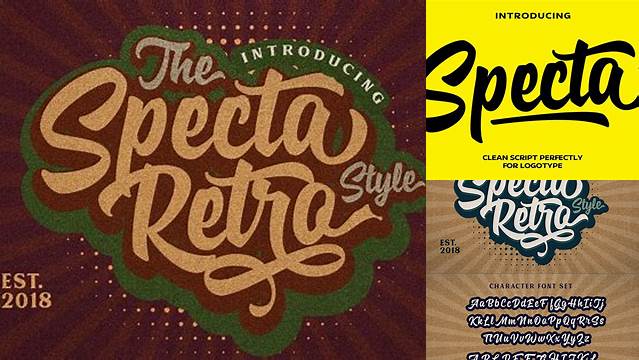
Hey guys! Are you looking for that perfect vintage vibe for your next design project? Look no further! The specta retro script font free is here to save the day. We're diving deep into everything you need to know about this awesome font, from its origins and characteristics to where you can snag it for free and how to use it like a pro. Let's get started!
1. What is Specta Retro Script Font?
The specta retro script font free is a typeface that captures the essence of vintage design with a modern twist. It's designed to evoke feelings of nostalgia, reminiscent of the mid-20th century's advertising, signage, and packaging. Its flowing lines, elegant curves, and unique letterforms make it a standout choice for projects that require a touch of retro charm. Whether you're working on branding, posters, or digital designs, Specta Retro Script can add a distinctive and eye-catching flair. The font's versatility also lies in its ability to pair well with other fonts, allowing for creative combinations that enhance the overall aesthetic. Designers often appreciate its legibility and readability, ensuring that the message remains clear while maintaining its stylistic appeal. The availability of the specta retro script font free has made it accessible to a broader range of users, including hobbyists and students, who can explore its potential without financial constraints.
2. The History and Inspiration Behind Specta
To truly appreciate the specta retro script font free, it helps to understand its historical context and the inspirations that fueled its creation. Retro script fonts, in general, draw heavily from the hand-lettered signage and advertising prevalent in the 1950s and 1960s. These were decades characterized by bold experimentation in design, where typefaces were crafted to be both functional and expressive. The Specta font likely takes cues from this era, reflecting the optimism and dynamism of the time. Designers often look back to vintage typography for inspiration, studying the nuances of letterforms, the interplay of thick and thin strokes, and the overall rhythm of the text. By understanding these historical influences, designers can better utilize the specta retro script font free in a way that respects its heritage while pushing its boundaries. The font's creator may have also been inspired by specific examples of mid-century design, such as vintage posters, classic car advertisements, or even the signage of old diners and theaters. This deep connection to the past is what gives Specta Retro Script its authentic and timeless appeal.
3. Key Characteristics of the Specta Font
The specta retro script font free has several defining characteristics that make it unique and desirable for various design applications. One of the most notable features is its flowing, cursive-like letterforms that create a sense of movement and elegance. The font often includes swashes and alternates, providing designers with options to add extra flair and personality to their typography. The contrast between thick and thin strokes is another key element, contributing to its visual interest and readability. The specta retro script font free typically exhibits a high degree of legibility, even at smaller sizes, making it suitable for both headlines and body text. Its design also considers the spacing between letters (kerning) and lines (leading), ensuring a harmonious and balanced appearance. Furthermore, the font usually supports a wide range of characters, including uppercase and lowercase letters, numbers, punctuation marks, and symbols, making it versatile for different languages and applications. The font's overall aesthetic is often described as warm, inviting, and approachable, making it a great choice for projects that aim to evoke positive emotions and nostalgia.
5. Using Specta in Branding
Incorporating the specta retro script font free into your branding strategy can significantly enhance your brand's identity and appeal. Its vintage aesthetic can evoke feelings of nostalgia and authenticity, which can be particularly effective for brands targeting a specific demographic or aiming to convey a sense of heritage. The font can be used in logos, taglines, and other visual elements to create a cohesive and memorable brand image. When using the specta retro script font free in branding, it's important to consider its legibility and how it pairs with other fonts and design elements. Ensure that the font is readable at various sizes and in different contexts, such as on websites, business cards, and marketing materials. Experiment with different color palettes and layouts to find the perfect combination that reflects your brand's personality and values. Consistency is key in branding, so once you've established a visual style using the specta retro script font free, maintain it across all your brand touchpoints. This will help create a strong and recognizable brand identity that resonates with your target audience and sets you apart from the competition.
6. Specta for Website Design
Using the specta retro script font free in website design can add a unique and stylish touch to your online presence. It can be used for headings, subheadings, and even body text, depending on the overall design and readability requirements. When incorporating the font into your website, it's essential to optimize its performance to ensure fast loading times and a seamless user experience. This can be achieved by using web font formats like WOFF and WOFF2, which are designed for efficient delivery over the internet. Consider using CSS to style the font and ensure it is displayed consistently across different browsers and devices. Pay attention to the font size, line height, and letter spacing to optimize readability and visual appeal. The specta retro script font free can be particularly effective for websites that aim to evoke a vintage or nostalgic feel, such as those in the hospitality, fashion, or entertainment industries. It can also be used to create a sense of authenticity and personality, making your website stand out from the crowd. Remember to test your website on different devices and browsers to ensure the font is displayed correctly and that the overall design is responsive and user-friendly.
7. Specta in Print Materials
The specta retro script font free is not limited to digital applications; it can also be effectively used in various print materials. From posters and flyers to brochures and business cards, the font can add a touch of retro charm and sophistication to your printed designs. When using the font in print, it's crucial to ensure that it is properly embedded in the files to avoid any font substitution issues during the printing process. Use high-resolution versions of the font to ensure crisp and clear text, especially for larger formats. Consider the paper stock and printing techniques to complement the font's aesthetic and enhance the overall visual impact. The specta retro script font free can be particularly effective for print materials that aim to evoke a vintage or handcrafted feel, such as wedding invitations, event posters, or artisanal product packaging. It can also be used to create a sense of nostalgia and authenticity, making your printed designs stand out from the competition. Experiment with different colors, textures, and layouts to find the perfect combination that reflects your brand's personality and values.
8. Pairing Specta with Other Fonts
To create a balanced and visually appealing design, it's often necessary to pair the specta retro script font free with other fonts. The key is to choose fonts that complement the script's style and enhance its readability. Sans-serif fonts are often a good choice, as they provide a clean and modern contrast to the script's flowing lines. Some popular sans-serif options include Helvetica, Arial, and Open Sans. Serif fonts can also work well, but it's important to choose ones that have a similar vintage or classic feel. Examples include Garamond, Times New Roman, and Baskerville. When pairing fonts, consider the hierarchy and purpose of the text. Use the specta retro script font free for headings and subheadings to draw attention, and use the complementary font for body text to ensure readability. Experiment with different font sizes, weights, and styles to create a visual hierarchy that guides the reader through the design. The goal is to create a harmonious and balanced composition that is both visually appealing and easy to read. Remember to test your font pairings in different contexts to ensure they work well together across various mediums and devices.
9. Color Palettes that Complement Specta
Choosing the right color palette is essential when using the specta retro script font free to enhance its vintage aesthetic and create a cohesive design. Colors that evoke a sense of nostalgia and warmth often work well, such as muted pastels, earthy tones, and retro-inspired hues. Consider using colors that were popular in the mid-20th century, such as teal, mustard yellow, coral, and olive green. These colors can be combined to create a visually appealing and authentic retro look. When selecting colors, consider the overall mood and message you want to convey. Warm colors like red, orange, and yellow can evoke feelings of energy and excitement, while cool colors like blue, green, and purple can create a sense of calm and sophistication. Neutral colors like beige, gray, and brown can provide a balanced and understated backdrop for the font. Experiment with different color combinations to find the perfect palette that complements the specta retro script font free and reflects your brand's personality. Use online color palette generators and resources to explore different options and create a harmonious and visually appealing design.
10. Design Software Compatibility with Specta
The specta retro script font free is generally compatible with most popular design software, including Adobe Photoshop, Illustrator, and InDesign. However, it's important to ensure that your software supports the font format (e.g., OTF, TTF) and that you have properly installed the font on your system. When using the font in design software, you can customize its appearance by adjusting parameters such as font size, letter spacing, line height, and color. Experiment with different effects and styles to enhance the font's visual impact and create a unique design. Some design software may offer advanced typography features that allow you to further customize the font, such as kerning, ligatures, and alternate characters. Take advantage of these features to refine the font's appearance and create a polished and professional design. Before exporting your design, ensure that the font is properly embedded or outlined to avoid any font substitution issues when the file is opened on another computer. Test your design in different software and devices to ensure that the font is displayed correctly and that the overall design is visually appealing.
11. Common Mistakes to Avoid When Using Specta
While the specta retro script font free can be a valuable asset in your design arsenal, it's important to avoid common mistakes that can detract from its effectiveness. One common mistake is overuse. Using the font too frequently or in inappropriate contexts can diminish its impact and make your design look cluttered and unprofessional. Another mistake is poor font pairing. Choosing fonts that clash with the script's style can create a jarring and visually unappealing design. It's also important to avoid using the font in overly small sizes, as this can make it difficult to read. Ensure that the font is legible and readable in all contexts, especially on websites and in print materials. Pay attention to kerning and letter spacing to avoid awkward gaps or overlaps between letters. Finally, avoid using the font in a way that is inconsistent with your brand's identity or the overall message you want to convey. By avoiding these common mistakes, you can ensure that the specta retro script font free is used effectively and enhances the overall quality of your design.
12. Specta for Logo Design
The specta retro script font free can be an excellent choice for logo design, especially if you're aiming for a vintage or handcrafted aesthetic. Its unique letterforms and flowing lines can add personality and character to your logo, making it stand out from the competition. When using the font in logo design, it's important to consider its legibility and scalability. Ensure that the logo is readable at various sizes and in different contexts, such as on websites, business cards, and signage. Experiment with different layouts and compositions to find the perfect balance between the font and other design elements. Consider adding a graphic element or symbol to complement the font and create a memorable and recognizable logo. The specta retro script font free can be particularly effective for logos in industries such as hospitality, fashion, and entertainment, where a vintage or artisanal feel is desired. Remember to create variations of your logo for different applications, such as a horizontal version, a vertical version, and a simplified version for small spaces. Test your logo on different backgrounds and in different colors to ensure that it looks good in all contexts.
13. Creating a Vintage Aesthetic with Specta
The specta retro script font free is a powerful tool for creating a vintage aesthetic in your designs. To enhance the retro feel, consider incorporating other design elements that were popular in the mid-20th century, such as vintage illustrations, textures, and patterns. Use muted color palettes and retro-inspired hues to create a cohesive and authentic look. Experiment with different layout techniques, such as asymmetrical layouts and hand-drawn elements, to add character and personality to your designs. The specta retro script font free can be used for a variety of vintage-inspired projects, such as posters, flyers, and invitations. Consider using distressed or textured paper stocks to enhance the vintage feel of your print materials. When designing for the web, use CSS to add retro-inspired effects, such as drop shadows and gradients. Remember to research vintage design trends and styles to gain inspiration and ensure that your designs are authentic and visually appealing. By combining the specta retro script font free with other vintage design elements, you can create a truly unique and memorable aesthetic.
14. Legibility Considerations for Specta
While the specta retro script font free is visually appealing, it's important to consider its legibility, especially when using it for body text or in smaller sizes. Ensure that the font is readable and easy to understand in all contexts. Pay attention to the letter spacing, line height, and font size to optimize readability. Avoid using the font in overly condensed or extended formats, as this can make it difficult to read. Consider using a complementary font for body text to improve readability, while reserving the specta retro script font free for headings and subheadings. Test your designs with different audiences to gather feedback on legibility and make adjustments as needed. Remember that legibility is crucial for effective communication, so prioritize it over aesthetics when necessary. The specta retro script font free can be used effectively while maintaining legibility by carefully considering its application and context. By optimizing readability, you can ensure that your designs are both visually appealing and easy to understand.
15. Using Specta for Social Media Graphics
Using the specta retro script font free for social media graphics can help your content stand out and attract attention. Its vintage aesthetic can evoke a sense of nostalgia and authenticity, which can be particularly effective for brands targeting a specific demographic or aiming to convey a sense of heritage. When using the font in social media graphics, it's important to consider the platform's specific requirements and limitations. Ensure that the font is readable on different devices and screen sizes. Use high-resolution images and graphics to ensure that your content looks crisp and professional. Experiment with different color palettes and layouts to find the perfect combination that reflects your brand's personality and values. The specta retro script font free can be used for a variety of social media graphics, such as profile pictures, cover photos, and promotional images. Consider using the font in animated graphics or videos to add visual interest and engagement. Remember to optimize your graphics for each platform to ensure that they are displayed correctly and that they meet the platform's guidelines. By using the specta retro script font free effectively in social media graphics, you can enhance your brand's online presence and connect with your target audience.
16. Specta for Invitations and Event Design
The specta retro script font free is an excellent choice for invitations and event design, adding a touch of elegance and vintage charm to your special occasions. Whether it's a wedding, birthday party, or corporate event, the font can help create a memorable and stylish invitation. When using the font in invitation design, consider the overall theme and style of the event. Use complementary colors and design elements to create a cohesive and visually appealing invitation. The specta retro script font free can be used for the main text, headings, or even decorative elements on the invitation. Experiment with different layouts and compositions to find the perfect balance between the font and other design elements. Consider using high-quality paper stock and printing techniques to enhance the overall look and feel of the invitation. The font can also be used in other event-related materials, such as menus, programs, and signage. Remember to proofread your invitations carefully to ensure that all the information is accurate and up-to-date. By using the specta retro script font free effectively in invitation and event design, you can create a sophisticated and memorable experience for your guests.
17. Exploring Specta Font Weights and Styles
The specta retro script font free may come in various weights and styles, offering you flexibility in your designs. Different weights, such as light, regular, and bold, can be used to create visual hierarchy and emphasis. Styles, such as italic or condensed, can add further variation and personality to your typography. When using different weights and styles, consider the overall design and the message you want to convey. Use heavier weights for headings and subheadings to draw attention, and use lighter weights for body text to improve readability. Experiment with different styles to find the perfect combination that complements the font's aesthetic and enhances the overall design. The specta retro script font free may also include alternate characters or ligatures, which can add unique and decorative elements to your typography. Take advantage of these features to create a custom and personalized design. Remember to use font weights and styles sparingly to avoid overwhelming the viewer and detracting from the overall design. By exploring the different weights and styles available for the specta retro script font free, you can create a dynamic and visually appealing typography that enhances your designs.
18. Specta in Packaging Design
Using the specta retro script font free in packaging design can create a unique and memorable brand identity. Its vintage aesthetic can evoke a sense of nostalgia and authenticity, which can be particularly effective for brands targeting a specific demographic or aiming to convey a sense of heritage. When using the font in packaging design, it's important to consider the overall product and target market. Use complementary colors and design elements to create a cohesive and visually appealing package. The specta retro script font free can be used for the product name, tagline, or other key information on the packaging. Experiment with different layouts and compositions to find the perfect balance between the font and other design elements. Consider using sustainable and eco-friendly packaging materials to align with your brand's values. The font can be used for a variety of packaging designs, such as food products, cosmetics, and apparel. Remember to comply with all relevant labeling and packaging regulations. By using the specta retro script font free effectively in packaging design, you can create a product that stands out on the shelf and attracts customers.
19. Tips for Customizing Specta Font
While the specta retro script font free is a beautiful font on its own, there are several ways you can customize it to make it even more unique and personalized. One way is to adjust the kerning and letter spacing to create a more balanced and visually appealing text. Another way is to add custom swashes or flourishes to the letters to add a touch of elegance and personality. You can also experiment with different colors and effects to enhance the font's visual impact. Consider adding a gradient or shadow to the font to make it stand out. You can also use design software to distort or manipulate the font in creative ways. Remember to use customization techniques sparingly to avoid overwhelming the viewer and detracting from the overall design. The goal is to enhance the font's natural beauty and create a custom design that reflects your brand's personality and values. By using these tips for customizing the specta retro script font free, you can create a truly unique and memorable typography.
20. Specta and its Role in Retro Gaming Design
The specta retro script font free can play a significant role in retro gaming design, evoking a sense of nostalgia and authenticity for classic gaming experiences. Its vintage aesthetic can transport players back to the golden age of gaming, creating a memorable and immersive experience. When using the font in retro gaming design, consider the overall theme and style of the game. Use complementary colors and design elements to create a cohesive and visually appealing interface. The specta retro script font free can be used for the game title, menu options, and in-game text. Experiment with different layouts and compositions to find the perfect balance between the font and other design elements. Consider using pixelated or low-resolution versions of the font to enhance the retro feel. The font can be used for a variety of retro gaming designs, such as arcade games, platformers, and role-playing games. Remember to comply with all relevant copyright and licensing regulations. By using the specta retro script font free effectively in retro gaming design, you can create a game that appeals to both nostalgic gamers and new players alike.
21. Licensing Considerations for Free Fonts
When downloading and using the specta retro script font free, it's crucial to understand and comply with the font's licensing terms. Free fonts are not always free for all uses, and many come with specific restrictions or requirements. Some free fonts may be free for personal use but require a commercial license for business purposes. Others may require attribution, meaning you must credit the font designer in your project. It's important to carefully read the license agreement before using the font to ensure that you are complying with its terms. Failure to comply with the font's licensing terms can result in legal consequences, such as fines or lawsuits. Always download free fonts from reputable sources and check the license information before using them in your designs. If you are unsure about the licensing terms, contact the font designer or distributor for clarification. By understanding and complying with the licensing terms for free fonts, you can avoid legal issues and ensure that you are using the specta retro script font free ethically and responsibly.
22. The Future of Retro Fonts Like Specta
The future of retro fonts like the specta retro script font free looks bright, as the demand for vintage-inspired designs continues to grow. As designers and brands seek to evoke a sense of nostalgia and authenticity, retro fonts will continue to be a popular choice. Technological advancements are also likely to play a role in the evolution of retro fonts, with new tools and techniques making it easier to create and customize vintage-inspired typefaces. We may also see the emergence of new retro font styles that blend classic design elements with modern trends. The specta retro script font free and other retro fonts are likely to remain a valuable asset for designers and brands seeking to create unique and memorable designs. As the design landscape continues to evolve, retro fonts will adapt and innovate, ensuring their continued relevance and popularity. The future of retro fonts is bright, and we can expect to see even more creative and innovative designs in the years to come.
23. Specta for Film and Movie Titles
The specta retro script font free can be a fantastic choice for film and movie titles, especially if you're aiming for a vintage or stylish aesthetic. Its unique letterforms and flowing lines can capture the essence of a particular era or genre, adding a touch of elegance and personality to your film. When using the font for film titles, consider the overall tone and theme of the movie. Use complementary colors and design elements to create a visually appealing and memorable title sequence. The specta retro script font free can be used for the main title, subtitles, or credits. Experiment with different layouts and compositions to find the perfect balance between the font and other design elements. Consider adding visual effects or animation to enhance the title sequence and create a lasting impression. The font can be used for a variety of film genres, such as classic dramas, romantic comedies, and independent films. Remember to comply with all relevant copyright and licensing regulations. By using the specta retro script font free effectively for film and movie titles, you can create a title sequence that sets the stage for a captivating cinematic experience.
24. Optimizing Specta for Different Screen Resolutions
Optimizing the specta retro script font free for different screen resolutions is essential to ensure that your designs look crisp and clear on all devices. With the proliferation of smartphones, tablets, and high-resolution displays, it's important to design with responsiveness in mind. When using the font in web design, use web font formats like WOFF and WOFF2 to ensure that the font is displayed correctly on different browsers and devices. Use CSS media queries to adjust the font size and layout for different screen resolutions. Consider using scalable vector graphics (SVGs) for logos and other design elements to ensure that they look sharp on high-resolution displays. Test your designs on different devices and browsers to ensure that the font is displayed correctly and that the overall design is visually appealing. Remember that optimizing for different screen resolutions is crucial for providing a seamless and user-friendly experience. By optimizing the specta retro script font free for different screen resolutions, you can ensure that your designs look great on all devices and that your message is effectively communicated.
25. Maintaining Consistency with Specta Across Platforms
Maintaining consistency with the specta retro script font free across different platforms is crucial for creating a cohesive and professional brand identity. Whether you're designing for the web, print, or social media, it's important to ensure that the font is displayed consistently and that your brand message is effectively communicated. When using the font in web design, use web font formats and CSS to ensure that the font is displayed correctly on different browsers and devices. When using the font in print design, ensure that the font is properly embedded in the files to avoid any font substitution issues during the printing process. When using the font in social media graphics, optimize your images and graphics for each platform to ensure that they are displayed correctly and that they meet the platform's guidelines. Use a consistent color palette and design style across all platforms to reinforce your brand identity. Remember that consistency is key for building brand recognition and trust. By maintaining consistency with the specta retro script font free across different platforms, you can create a strong and recognizable brand identity that resonates with your target audience.
26. Creating a Modern Twist on Specta Retro Script
While the specta retro script font free is rooted in vintage design, there are several ways you can give it a modern twist to create a unique and contemporary look. One way is to pair the font with modern design elements, such as geometric shapes, bold colors, and minimalist layouts. Another way is to use the font in unexpected contexts, such as in website headers or app interfaces. You can also experiment with different font weights and styles to create a more dynamic and visually appealing typography. Consider using the font in combination with modern fonts, such as sans-serif or geometric fonts, to create a balanced and harmonious design. Remember that the key is to experiment and find a style that reflects your brand's personality and values. By creating a modern twist on the specta retro script font free, you can create a design that is both timeless and contemporary.
27. Alternatives to Specta Retro Script Font
If the specta retro script font free doesn't quite fit your needs, there are several alternatives that you can consider. Some popular retro script fonts include Pacifico, Lobster, and Great Vibes. These fonts offer a similar vintage aesthetic but with slightly different characteristics and styles. You can also explore other font categories, such as sans-serif or serif fonts, to find a complementary font that pairs well with your design. Remember to consider the overall tone and style of your project when choosing an alternative font. Experiment with different font combinations and layouts to find the perfect fit for your design. There are many excellent fonts available, so don't be afraid to explore and find something that inspires you. While the specta retro script font free is a great choice, it's always good to have options and find the perfect font for your project.
28. The Psychological Impact of Using Specta Font
The specta retro script font free, like any font, can have a psychological impact on viewers. Its vintage aesthetic can evoke feelings of nostalgia, warmth, and authenticity. It can also create a sense of trust and familiarity, which can be particularly effective for brands targeting a specific demographic or aiming to convey a sense of heritage. The font's flowing lines and elegant curves can create a sense of sophistication and style. However, it's important to use the font appropriately and in contexts where its vintage aesthetic is relevant. Using the font in inappropriate contexts can create a disconnect between the design and the message, which can undermine its effectiveness. Remember to consider the overall tone and style of your project when using the specta retro script font free. By understanding the psychological impact of the font, you can use it effectively to create a design that resonates with your target audience.
29. Resources for Learning More About Typography
If you're interested in learning more about typography and how to use fonts effectively, there are many excellent resources available online and in print. Websites like Typography.com and I Love Typography offer articles, tutorials, and inspiration for designers of all levels. Books like "The Elements of Typographic Style" by Robert Bringhurst and "Thinking with Type" by Ellen Lupton are classic guides to typography principles and best practices. Online courses and workshops can also provide valuable training and guidance. Experimenting with different fonts and design techniques is a great way to learn and develop your skills. Remember that typography is a crucial element of design, and mastering it can significantly enhance the quality and effectiveness of your work. By taking advantage of these resources, you can expand your knowledge of typography and become a more skilled and confident designer. And you'll be well-equipped to use the specta retro script font free like a pro!
30. Showcasing Successful Specta Font Projects
One of the best ways to understand the potential of the specta retro script font free is to look at successful projects that have used it effectively. Many brands and designers have incorporated the font into their designs to create a vintage or stylish aesthetic. Examples can be found in various industries, such as hospitality, fashion, and entertainment. Look for projects that have used the font in creative and innovative ways, and analyze what makes them successful. Consider the color palettes, layouts, and design elements that complement the font and enhance its visual impact. Pay attention to how the font is used in different contexts, such as on websites, in print materials, and in social media graphics. By studying successful Specta font projects, you can gain inspiration and insights that will help you use the font more effectively in your own designs. This will give you a better understanding of how to use the specta retro script font free to achieve your design goals.